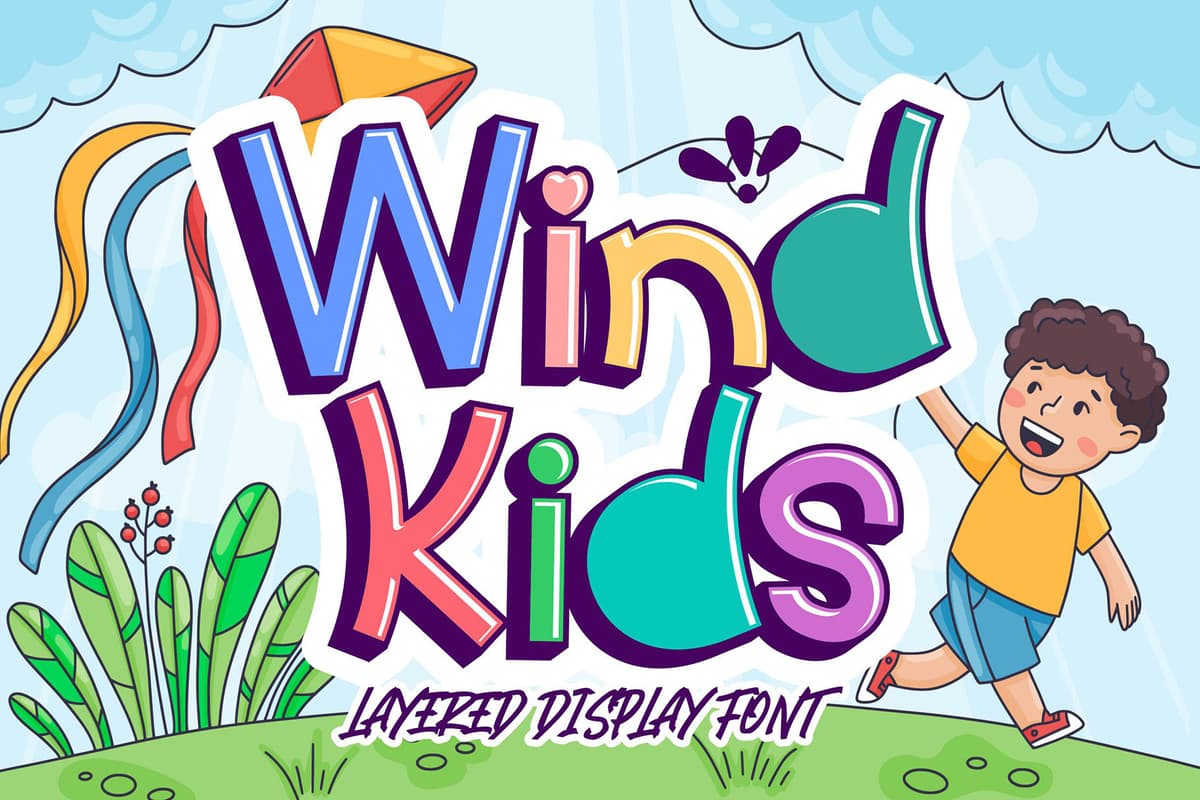
Wind Kids - Shadow
Introducing Wind Kids – the Cute Layered Display Font that brings a playful and delightful charm to your designs. Perfect for projects aimed at children or those needing a touch of whimsy, Wind Kids offers a versatile and engaging aesthetic that stands out. ✨ Playful and Delightful: Wind Kids captivates with its fun and adorable letterforms. Each character is crafted to evoke a sense of joy and creativity, making it ideal for designs that need a cute and cheerful appeal.